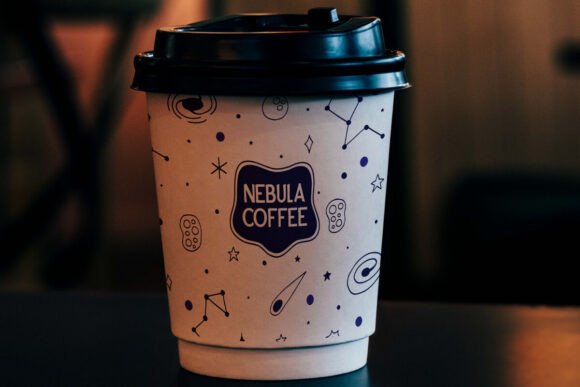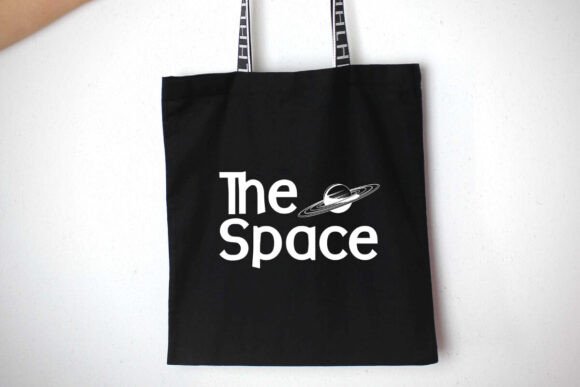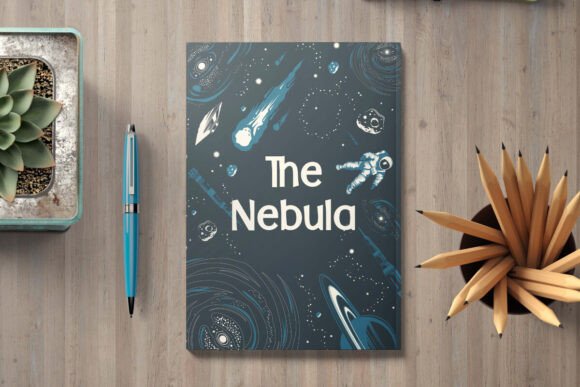
Nebula View Font: A Unique Sans Serif Display Font for Creative Branding
About the Nebula View Font
Elevate your designs with Nebula View Font, a font that combines sophistication with readability. Nebula View Font is a basic yet fun sans serif display font with unique characteristics. This font has a unique style so it can be paired with other types of fonts perfectly. It will be good for any designs, such as brand image, cover, custom design, invitation, label, marketing material, menu, poster, product packaging, quote, signage, stationery, web, and many more!
Nebula View’s playful yet bold personality makes it ideal for headlines, posters, and short impactful text on packaging or branding materials. Its unique characteristics shine in large sizes, where its details are most visible. However, its less-than-optimal x-height makes it unsuitable for extended body text or UI elements requiring high readability.
Pairing Nebula View effectively depends on the desired outcome. For a modern and energetic feel, consider pairing it with a clean geometric sans-serif like Futura or a contrasting serif like Playfair Display. To emphasize its playful side, a handwritten script font such as Pacifico could be used for secondary text.
For a more sophisticated application, a neutral sans-serif like Lato can balance Nebula View’s boldness, creating a dynamic yet refined aesthetic. Avoid pairing it with other highly stylized fonts to prevent visual clutter.
Nebula View Font Usage Examples
Nebula View Font Example